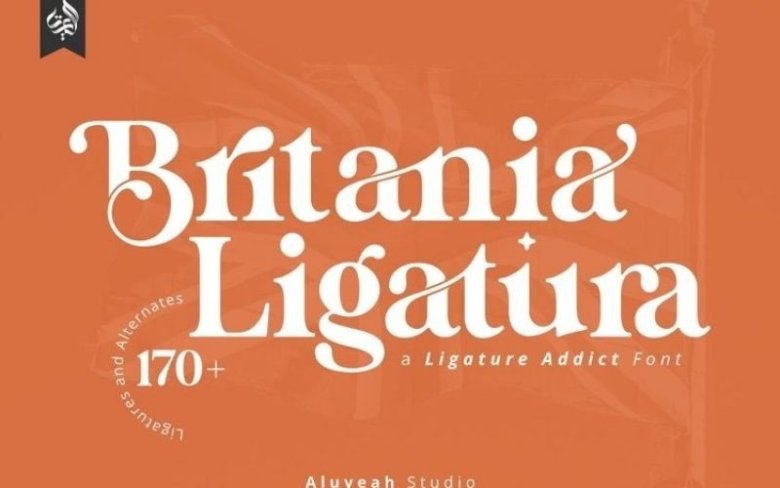
Britania Ligatura Serif Font is a bold and modern serif with 170+ stunning alternate and ligature to create a perfectly fashionable, beautiful, fancy, and elegant design. This gorgeous font will engage your audience and make your promotions and projects stand out. Use it for headings, logos, business cards, printed quotes, invitations of all sorts, cards, packaging, and your website or social media branding.